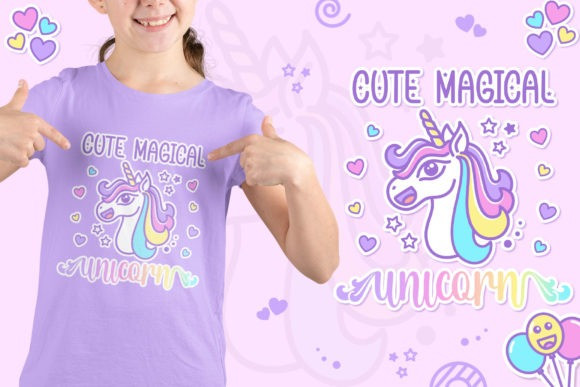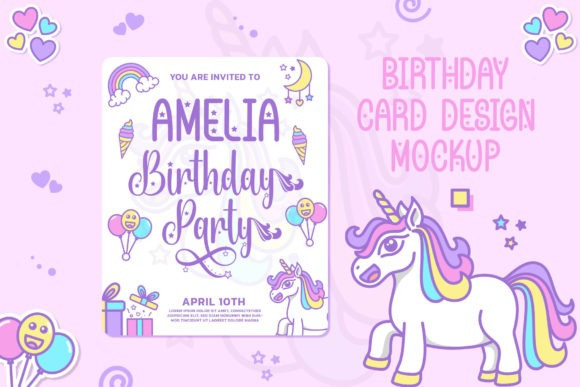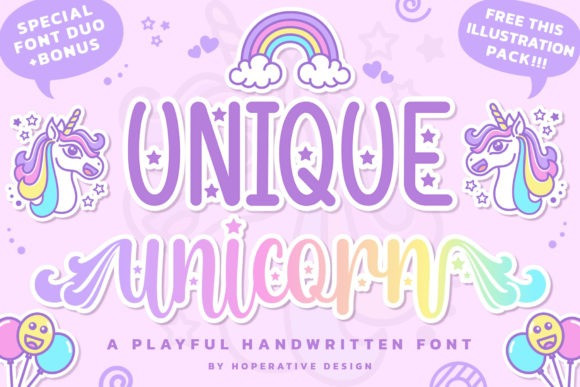
Unique Unicorn Font
Unique Unicorn Font is a fun and playful font duo (script and display.) This font is perfect for designs with unicorn themes such as children’s clothes, birthday cards, children’s books, and more!
Bonus unicorn illustrations are added to make your unicorn-theme design more attractive and cute.
And this font is PUA encoded, which means you can access all of the glyphs and swashes with ease!